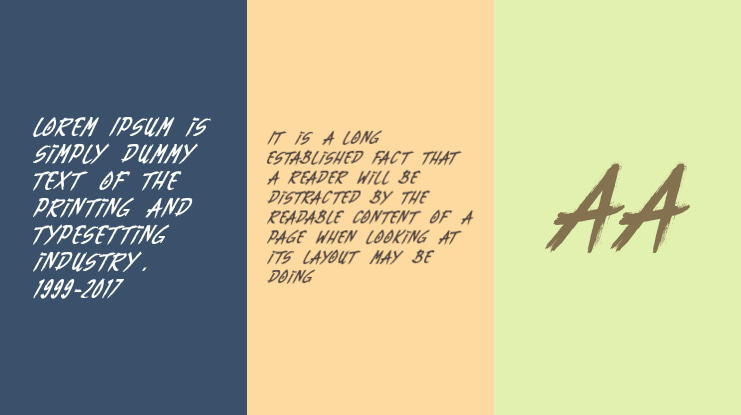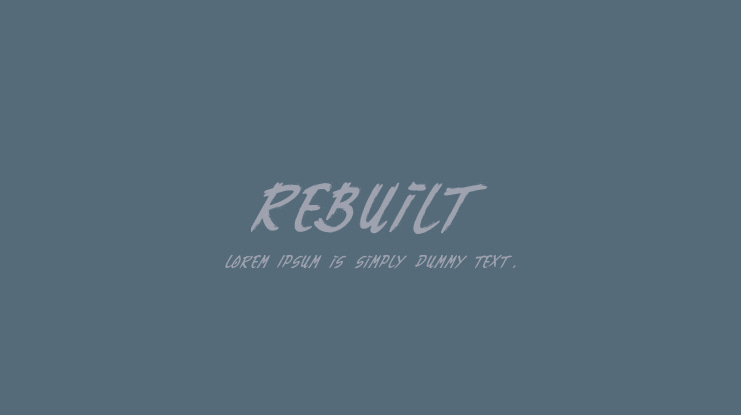
Rebuilt Font
Rebuilt is a stunning Display font with a modern urban brush style. This font is made with asbtrack brush theme with wild concept. This font can be used for many purposes. such as logotypes, t-shirts, banners, quotes etc